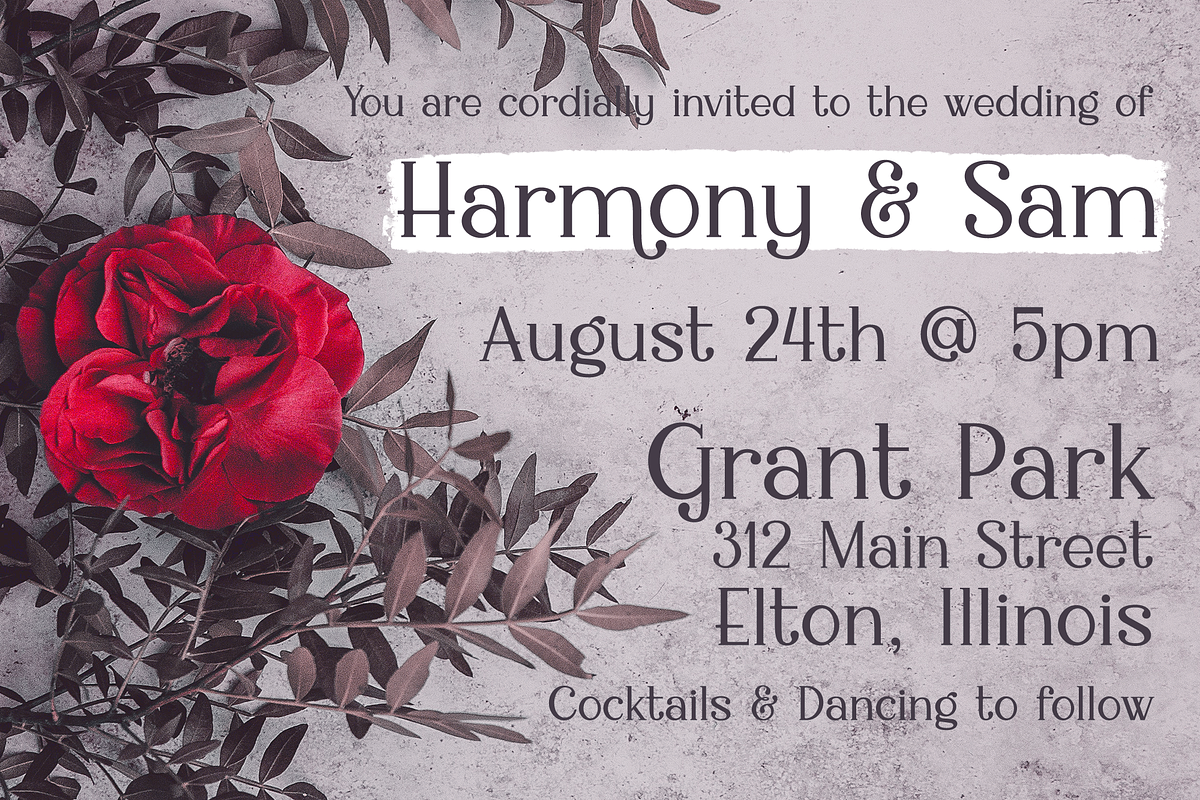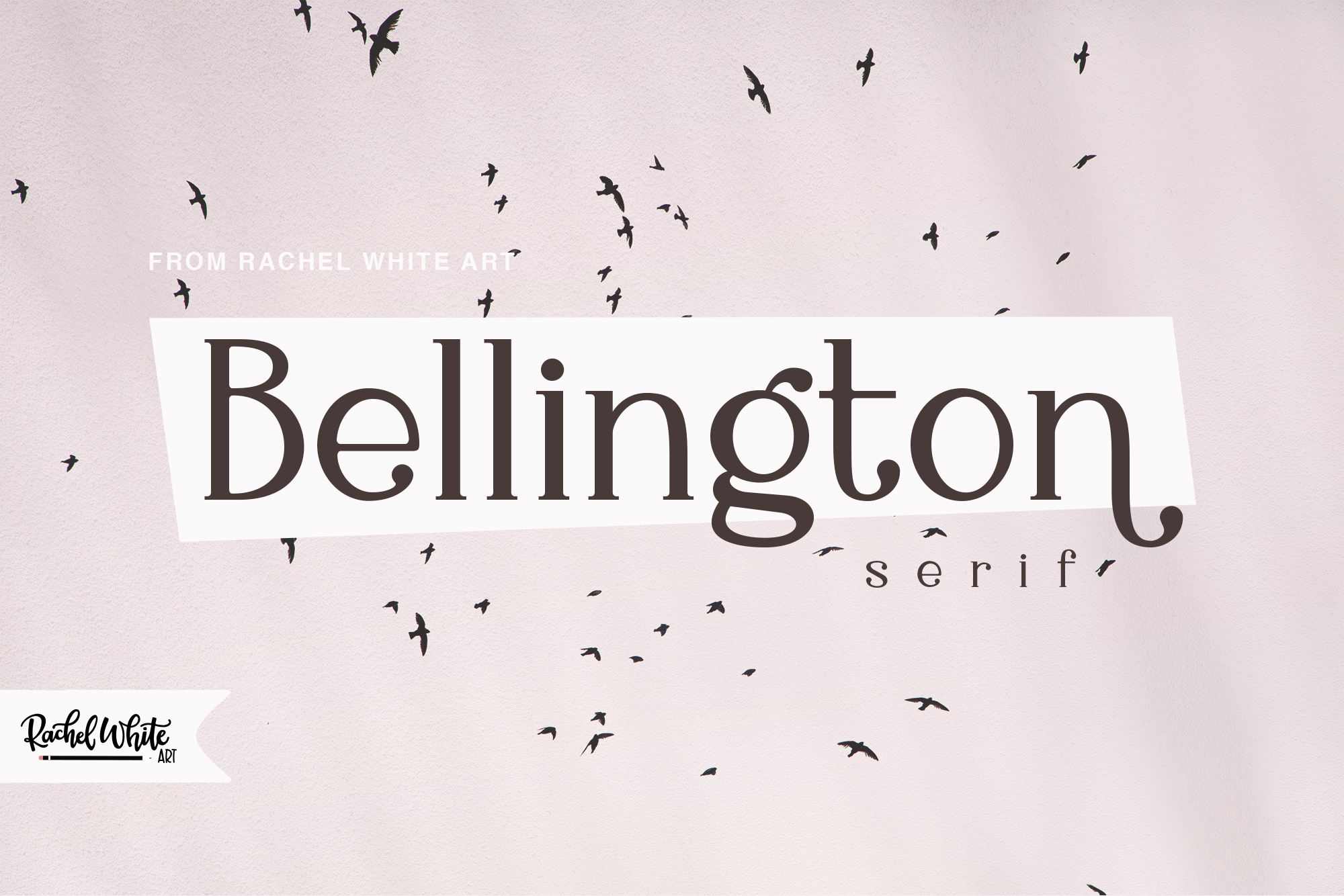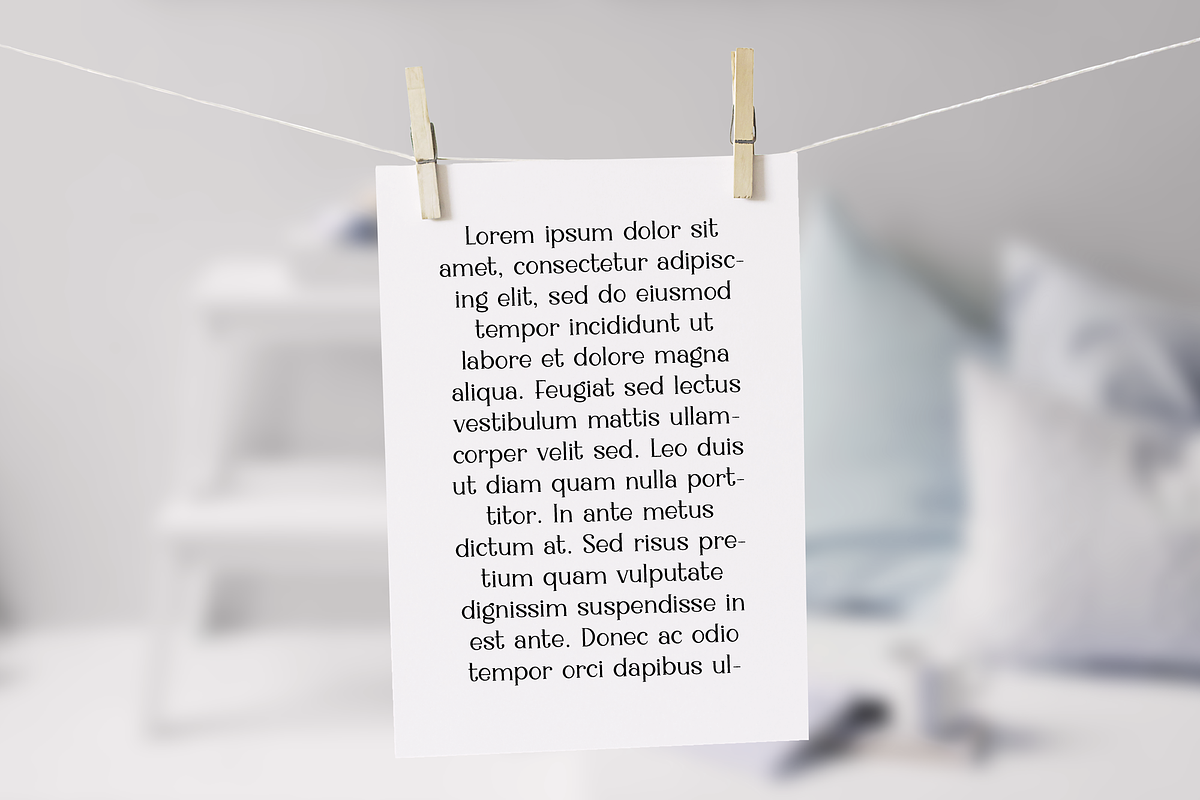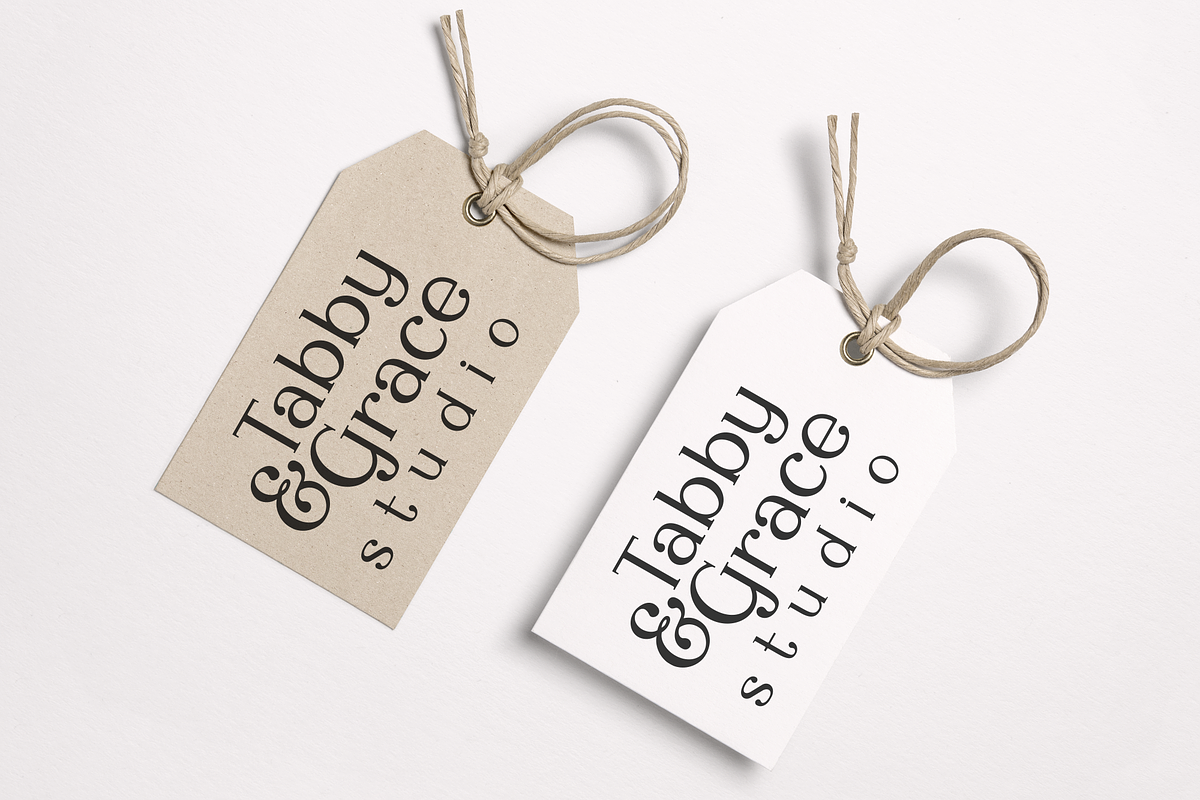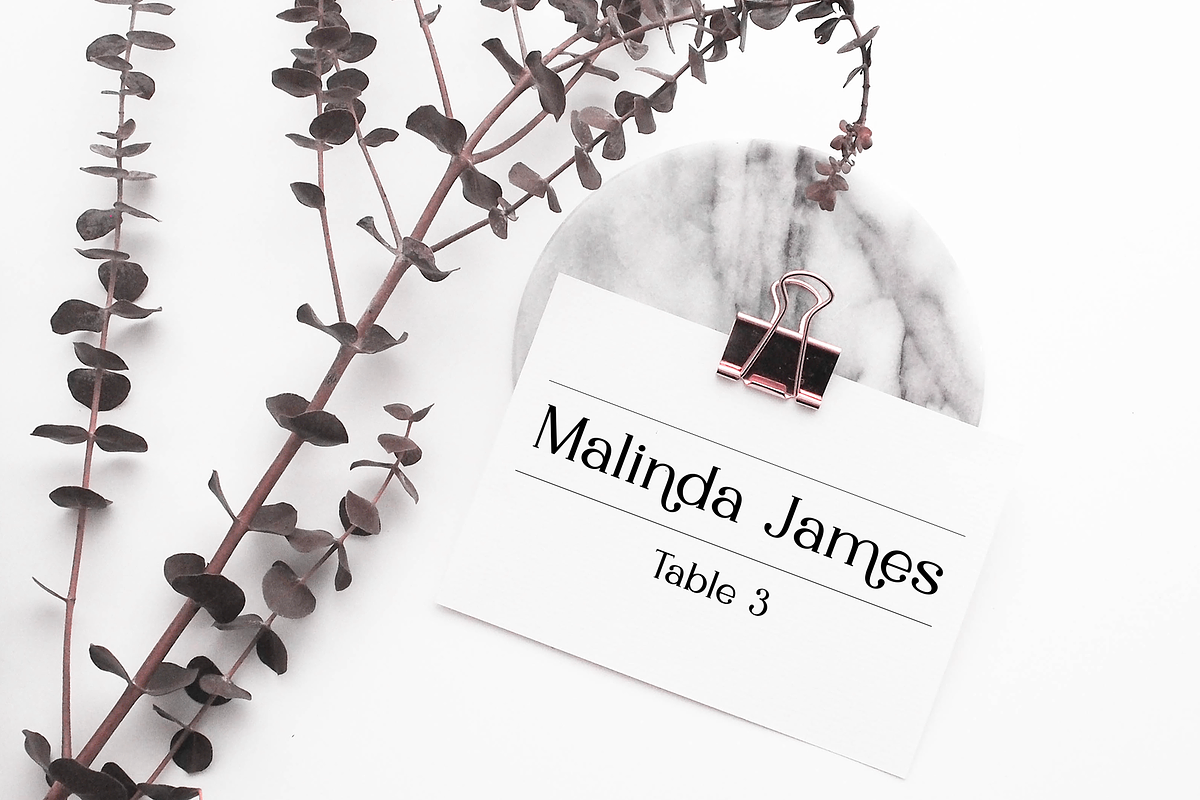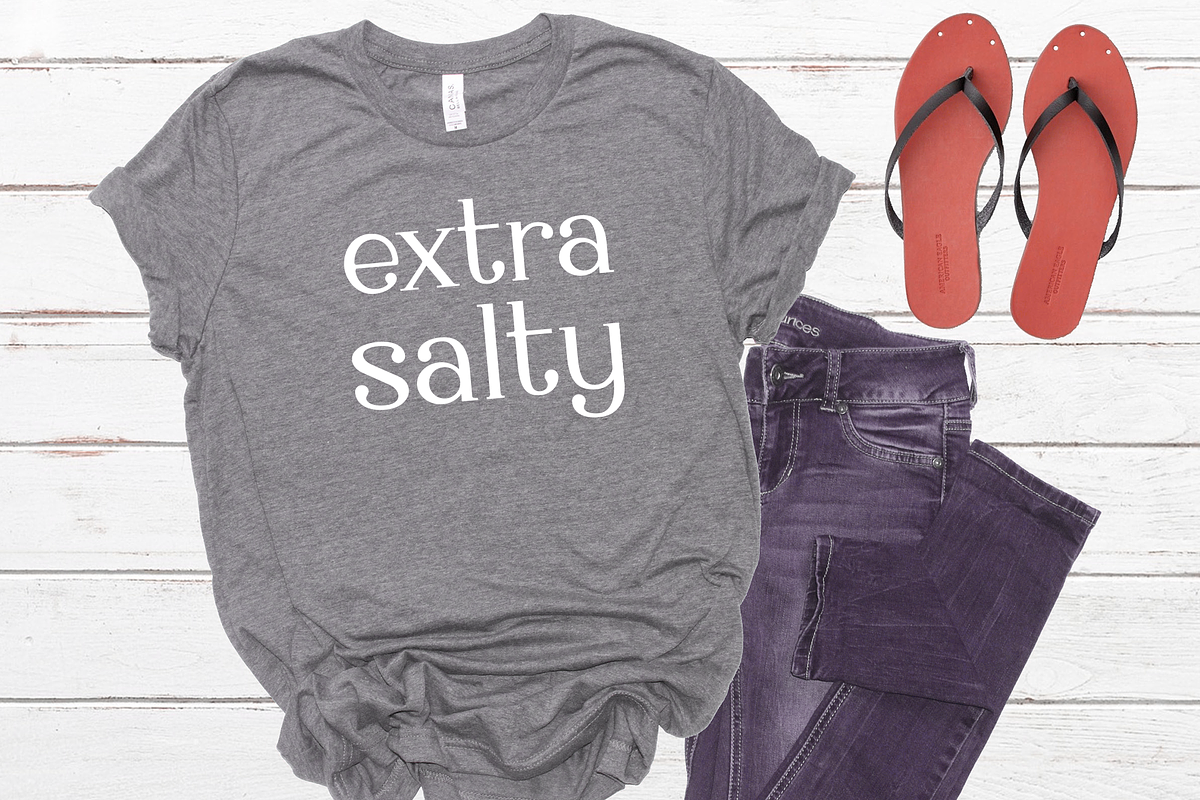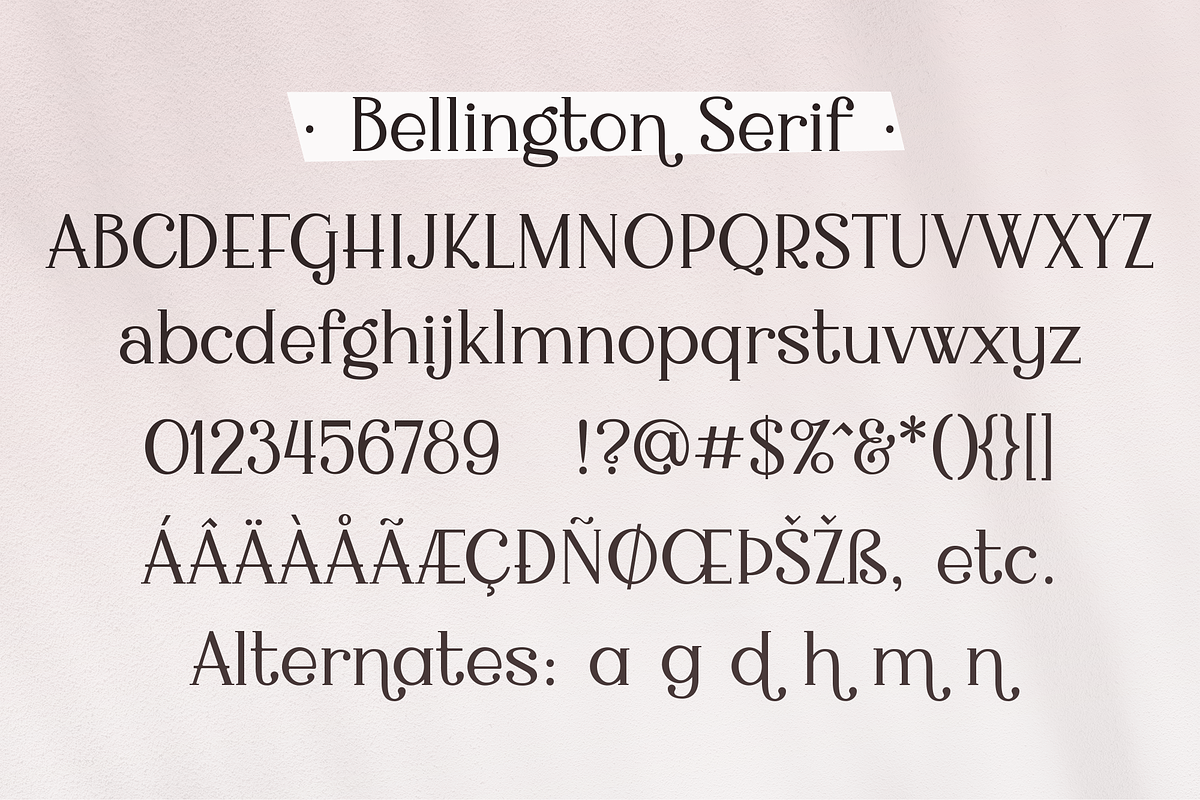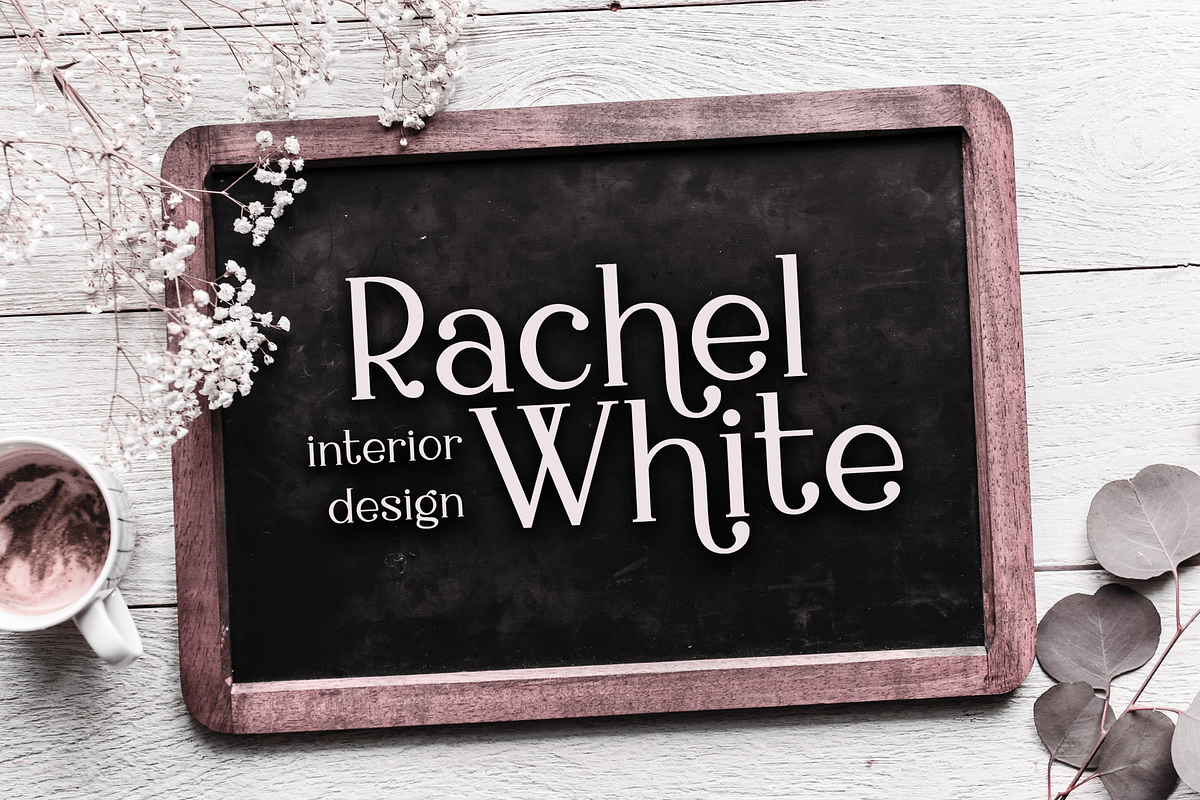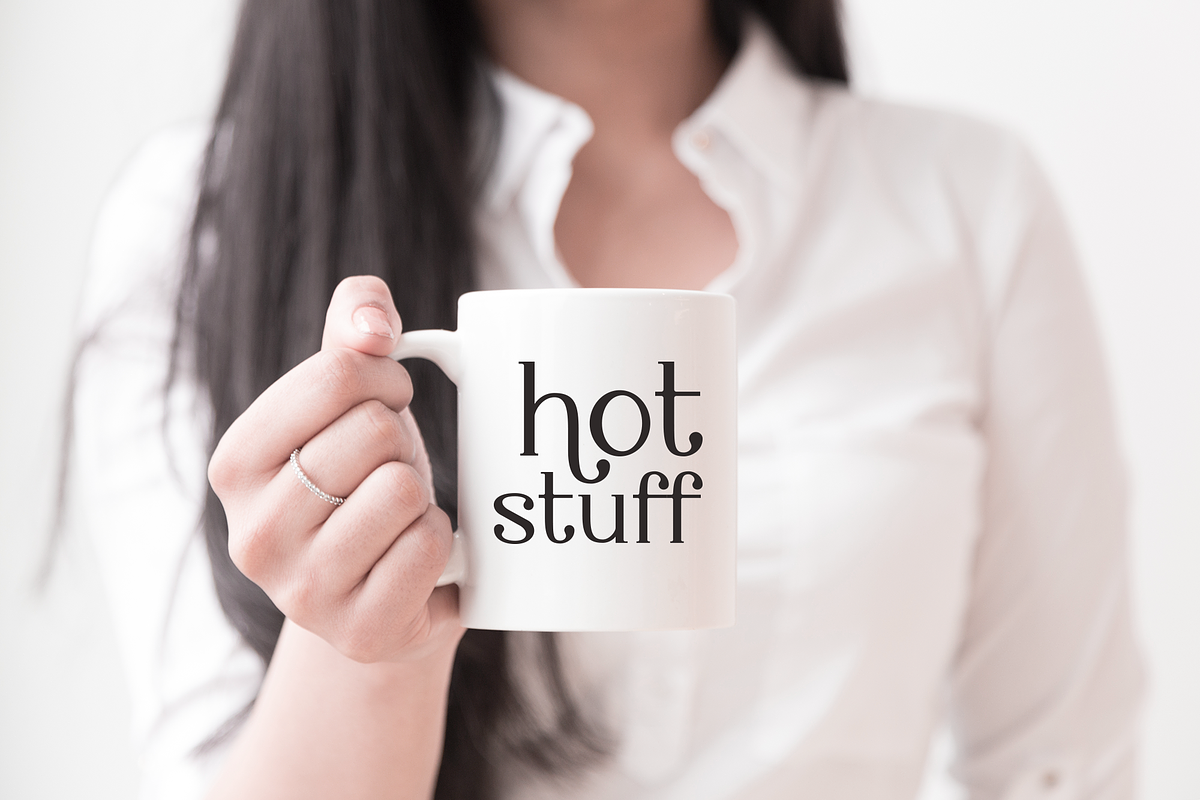
Bellington, a charming serif font
Bellington is a friendly, hand-drawn serif font with a soft, slightly quirky feel. Its imperfect lines and subtle personality make it perfect for branding, packaging, greeting cards, children’s designs, and anything that needs a warm, approachable vibe.
With a mix of classic structure and playful charm, Bellington works beautifully in both headline and body text, bringing character without overpowering your design.